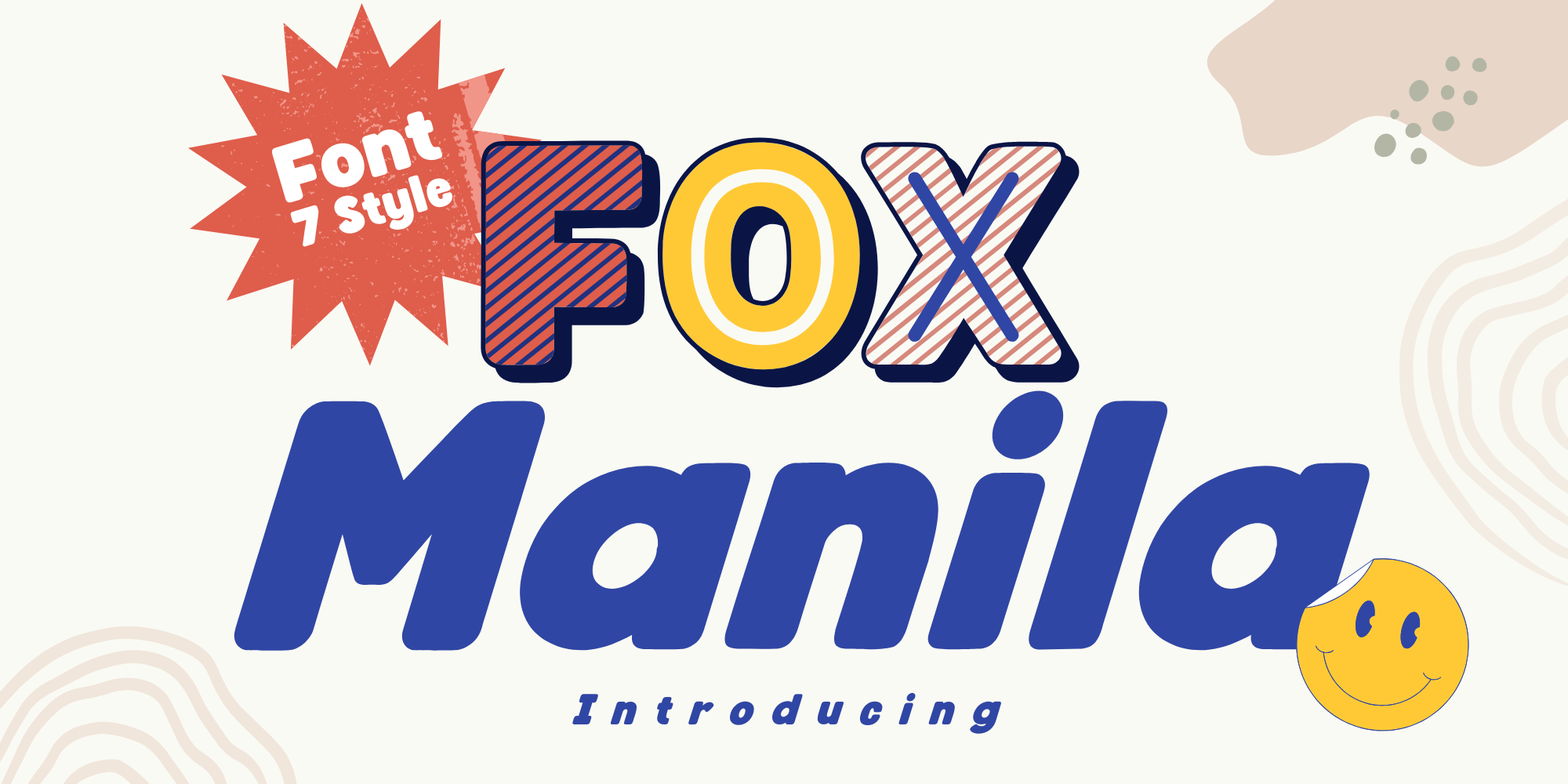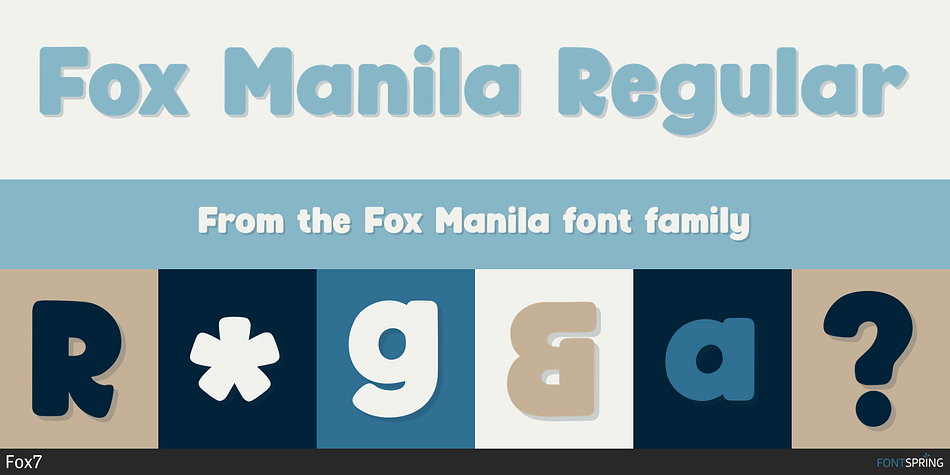
Fox Manila Regular
Designed by Rattana Rattanawan, Fox Manila is a sans serif font family. This typeface has seven styles and was published by Fox7.
Fox Manila is a 7 style font that cool and playful display font that adds a captivating and energetic touch to your designs. Perfect for use in publications, menus, logos, business cards, or even printed on t-shirts, these fonts exude uniqueness. Its main feature is its vibrant and expressive design, allowing you to create attention-grabbing headlines, t-shirt typography, banners, product labels, and more.